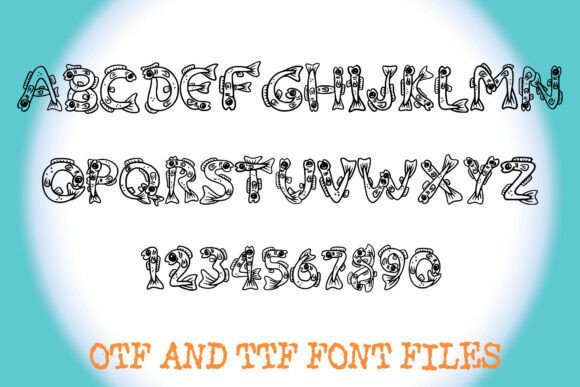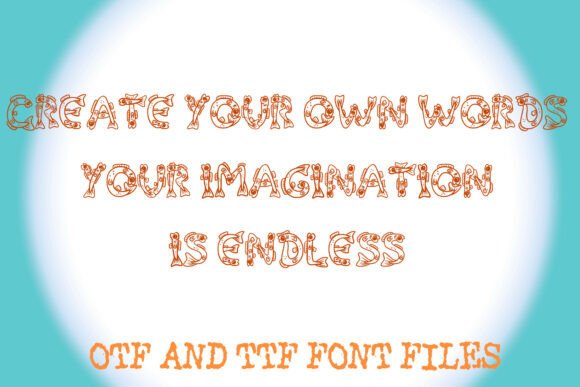
The Catch: How Fish Font Can Hook Your Design Projects
I’ll never forget the time I was working on a children’s book about marine life. My client wanted a font that would bring the underwater world to life, but I was struggling to find the perfect fit. That’s when I stumbled upon the Fish Font, and it was love at first sight! ✨ This whimsical font transforms each letter into a playful aquatic character, instantly adding a splash of creativity to any design project.
A Personal Review: The Good, the Great, and the Quirks
- ✨ Unique and playful design that’s perfect for kids’ projects, ocean-themed branding, and educational materials
- ✅ Easy to read and understand, even for younger audiences
- 🌊 Versatile and adaptable for various design applications, from titles to body text
- 🤔 Some letters may appear a bit distorted or stylized, which can be limiting for certain design applications
- ⚠️ May not be suitable for formal or professional projects that require a more traditional font
The Designer Inspiration Behind Fish Font
The Fish Font was designed by a creative team that’s passionate about typography and marine life. The team wanted to create a font that would bring the underwater world to life in a fun and playful way. Inspired by the colorful fish and sea creatures that inhabit our oceans, they designed a font that’s both whimsical and functional.
| Font Name | Fish Font |
| Author | squeebcreative |
Q: What type of projects is Fish Font best suited for?
A: Fish Font is ideal for children’s books, ocean-themed branding, educational projects, and any design application that requires a playful and whimsical touch.
Q: Is Fish Font available in different styles or weights?
A: Currently, Fish Font is available in a single style, but the design team may release additional styles or weights in the future.